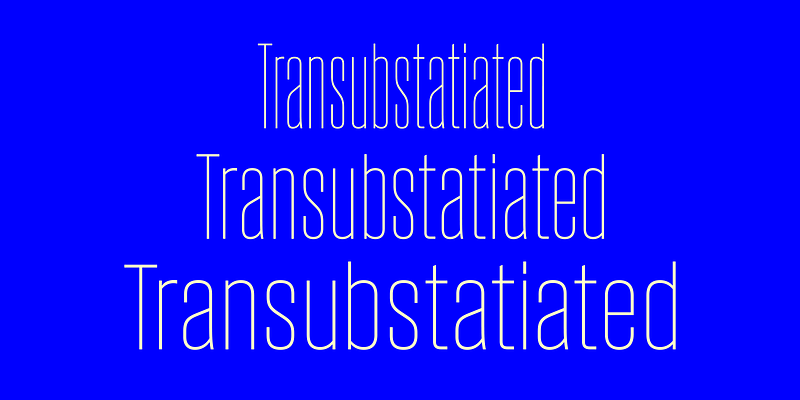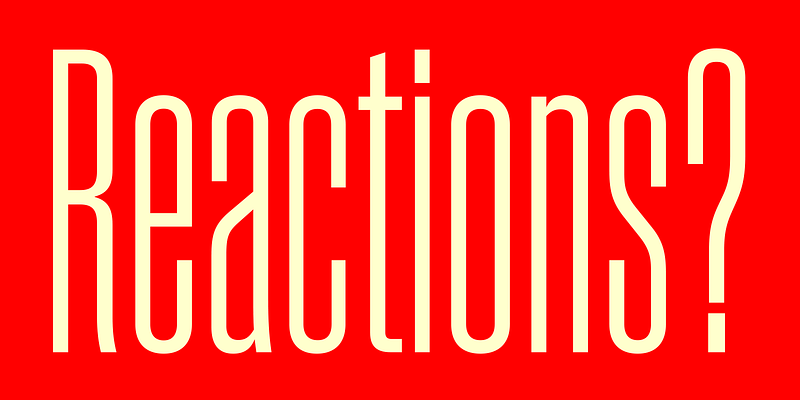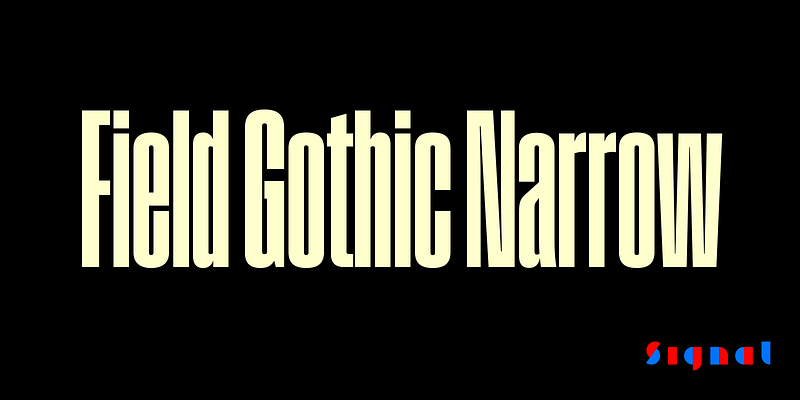
Field Gothic is a 64-style journey through the history of American and European sanses with eight widths and eight weights. The 24 Narrow styles are crisp and on the cool side. The x-height is high; punctuation and diacritics and substantial. The lightest weights are almost monoline; above that, arches and bowls have sharply contrasting junctures and a snug fit for maximum impact in headline sizes. Also available: Field Standard and Field Wide.